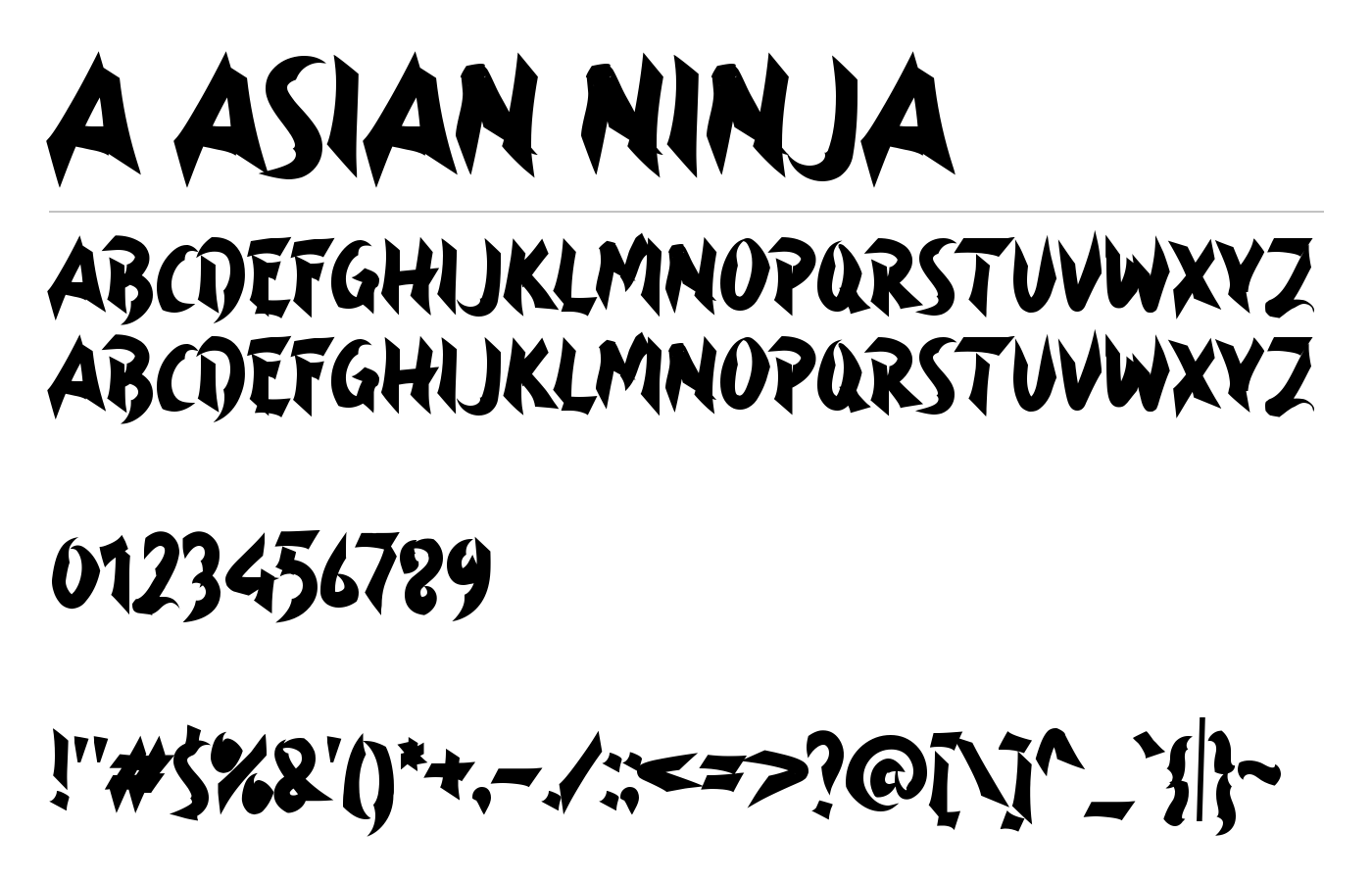
Asian Ninja is a bold, display sans serif font with sharp, angular strokes that evoke a sense of strength and agility. Its high-contrast, jagged letterforms and dynamic shapes give it a dramatic, adventurous personality, making it ideal for eye-catching logos, posters, and branding that seeks to convey energy and a martial arts-inspired aesthetic. This font works particularly well in creative projects needing an impactful, stylized presence rather than long blocks of text.
a Asian Ninja Font
About a Asian Ninja Font